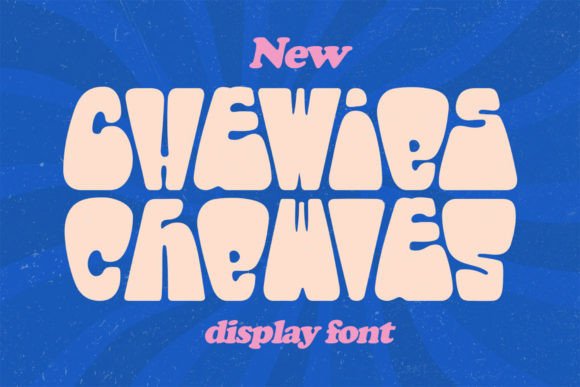
Behold, Chewies Font - a typographic delight that bursts with personality and charm. Designed by the masterful letterhend, this display font family is an extraordinary creation that captivates with its quirky, bold, and playful nature. It's the perfect font for those seeking a unique and friendly accent in their designs.
Embrace the whimsical and playful spirit of Chewies Font. Its bold, chunky letters exude a sense of joy and lightheartedness, making it an ideal choice for designs that aim to inspire smiles and laughter. Let your imagination soar as you unleash the boundless creativity that Chewies Font ignites.
With Chewies Font, you're not just downloading a font; you're embarking on a journey into a realm of endless possibilities. From vibrant posters and eye-catching social media graphics to playful branding and enchanting invitations, Chewies Font is your versatile companion. It's a font that effortlessly adapts to your every design need, transforming your projects into visually stunning masterpieces.
As a designer, you know the power of a well-chosen font. Chewies Font is more than just a collection of letters; it's an artistic expression that brings life to your designs. Its quirky charm and bold presence command attention, leaving a lasting impression on your audience. Trust Chewies Font to make your designs shine and leave a trail of smiles wherever they go.